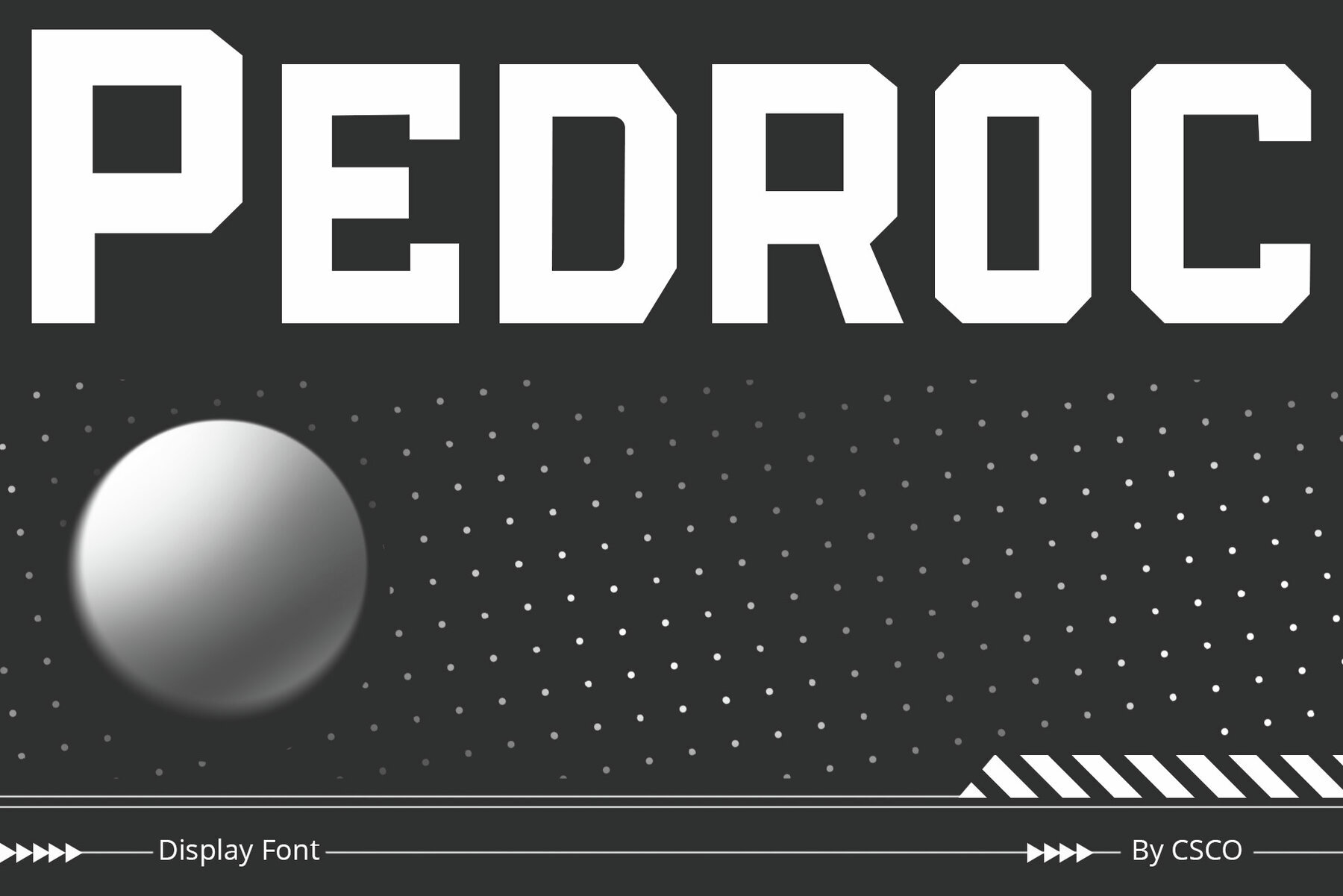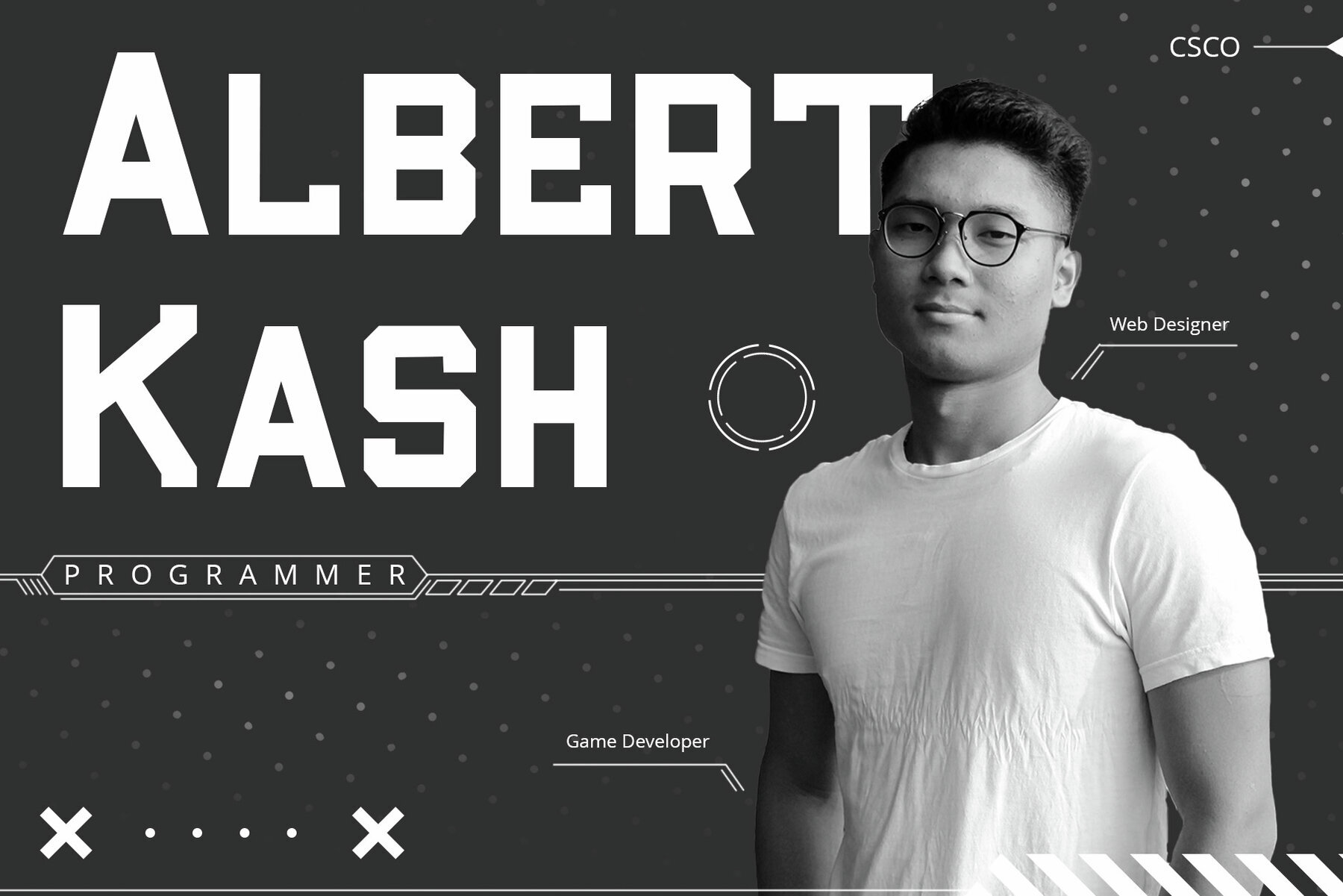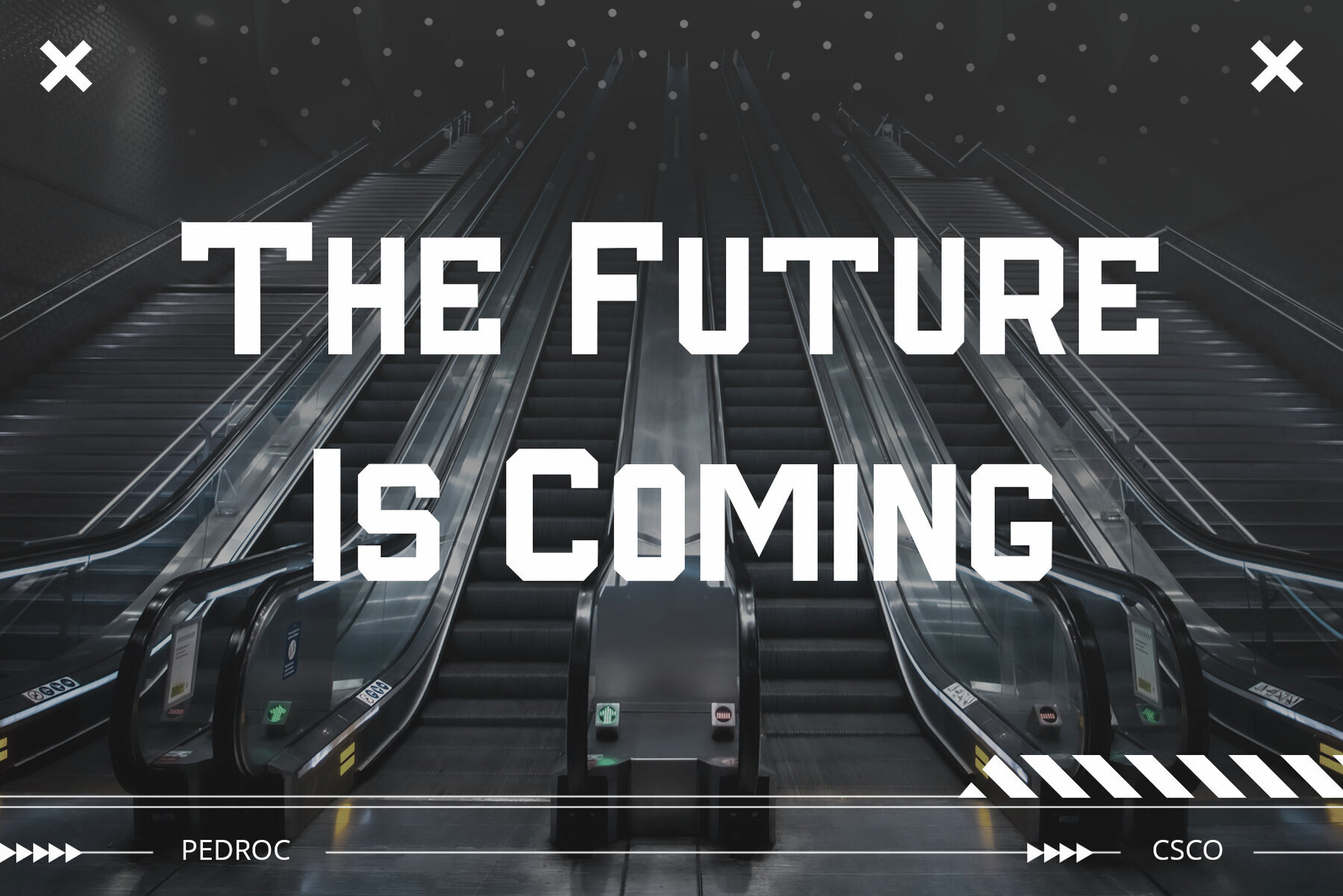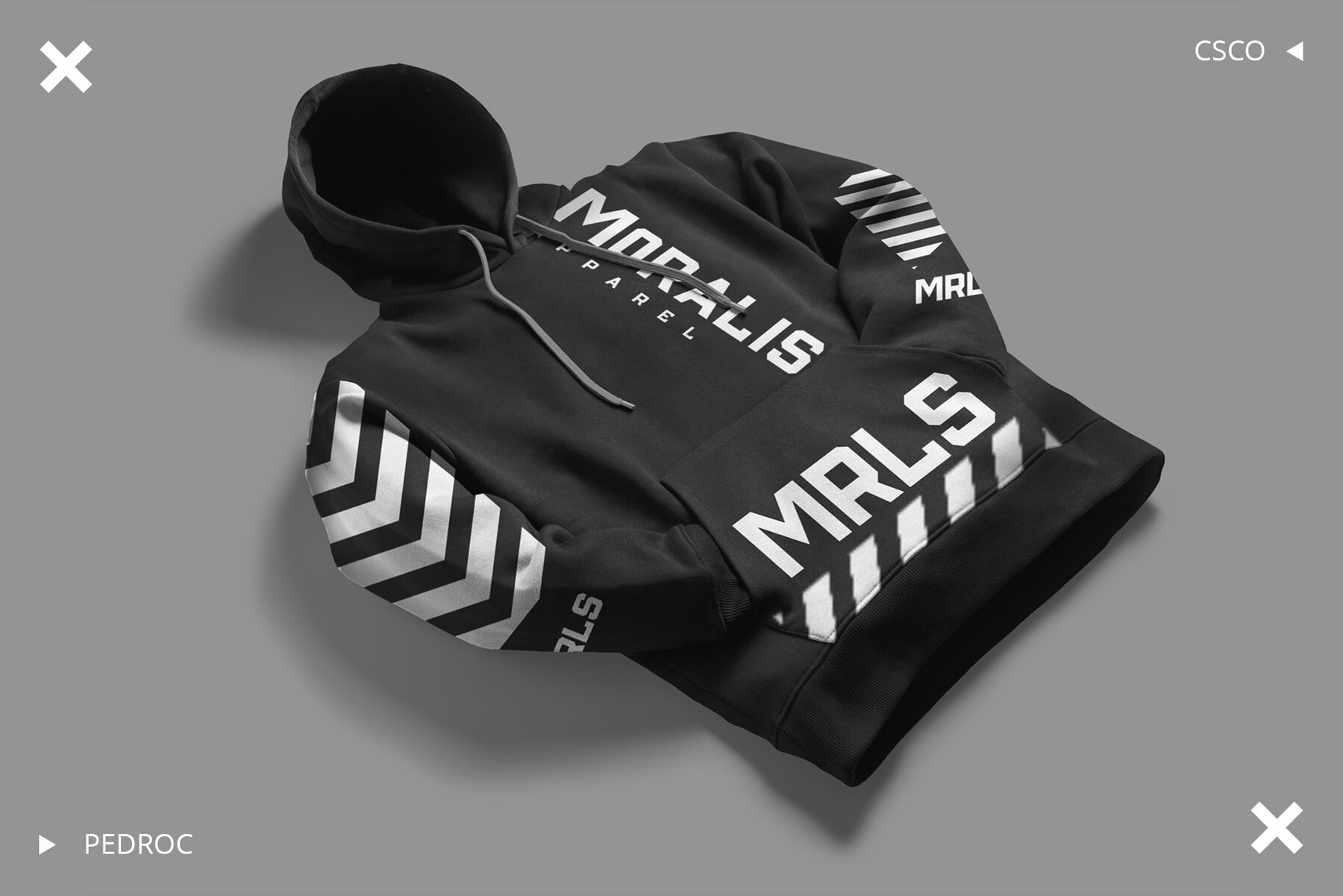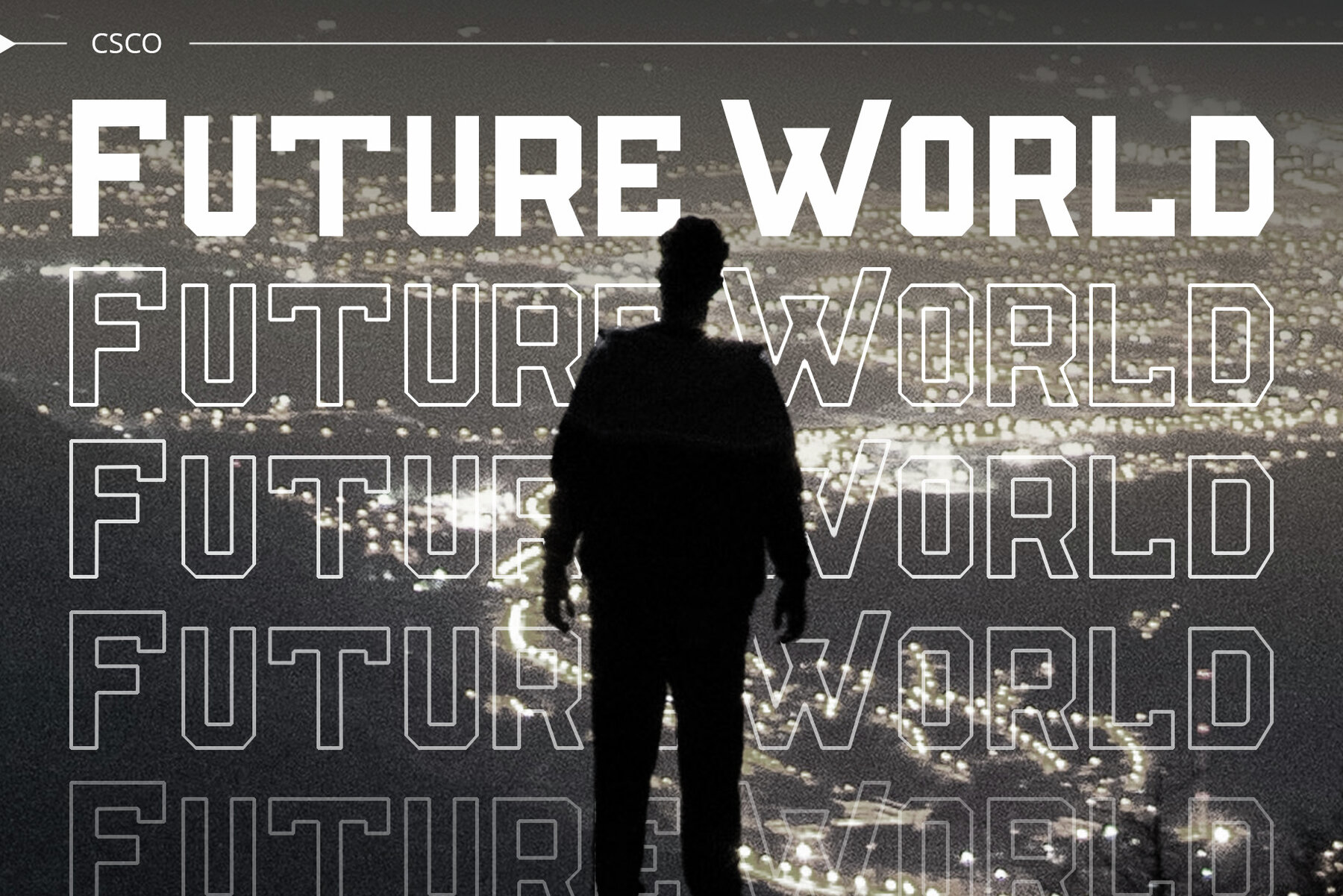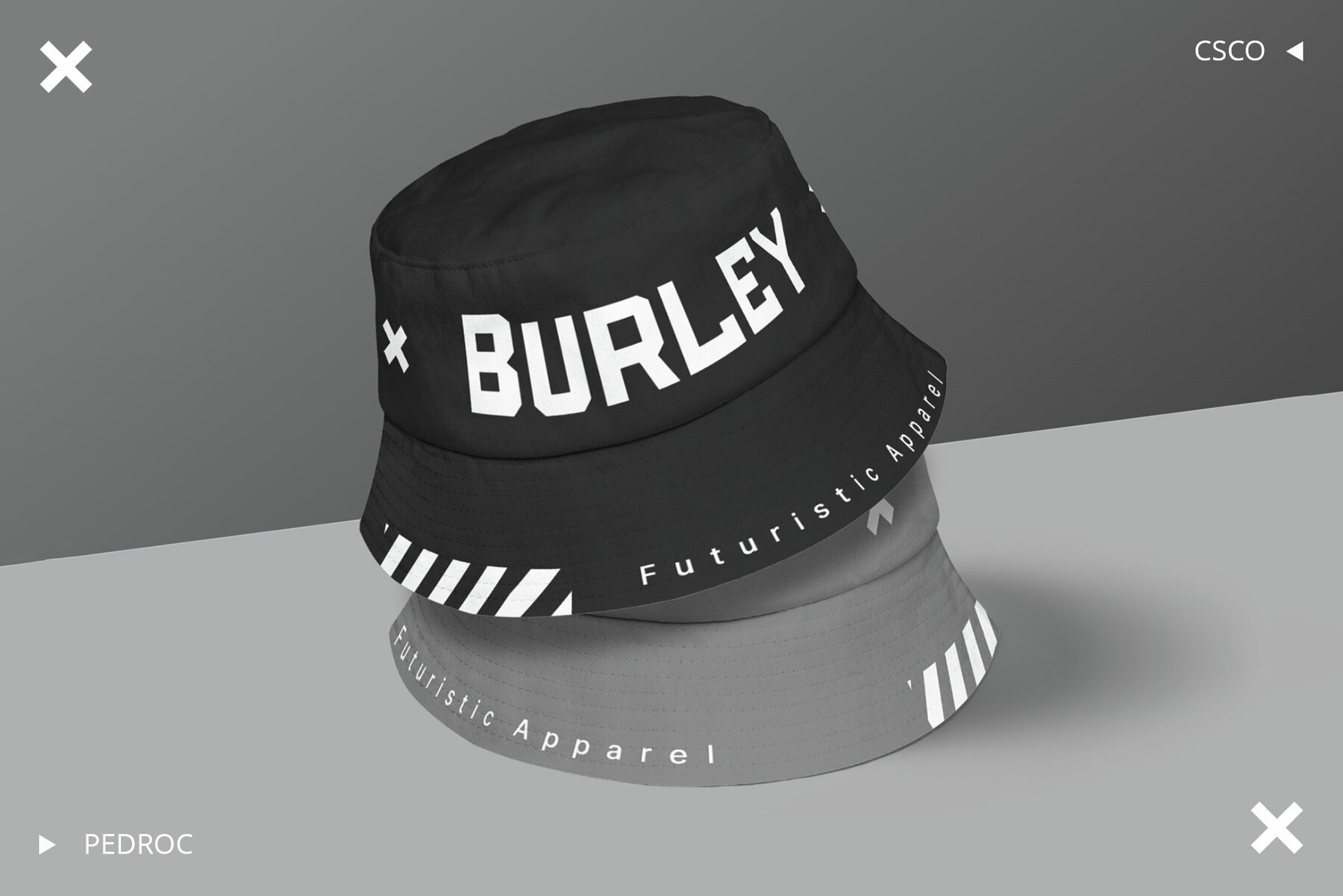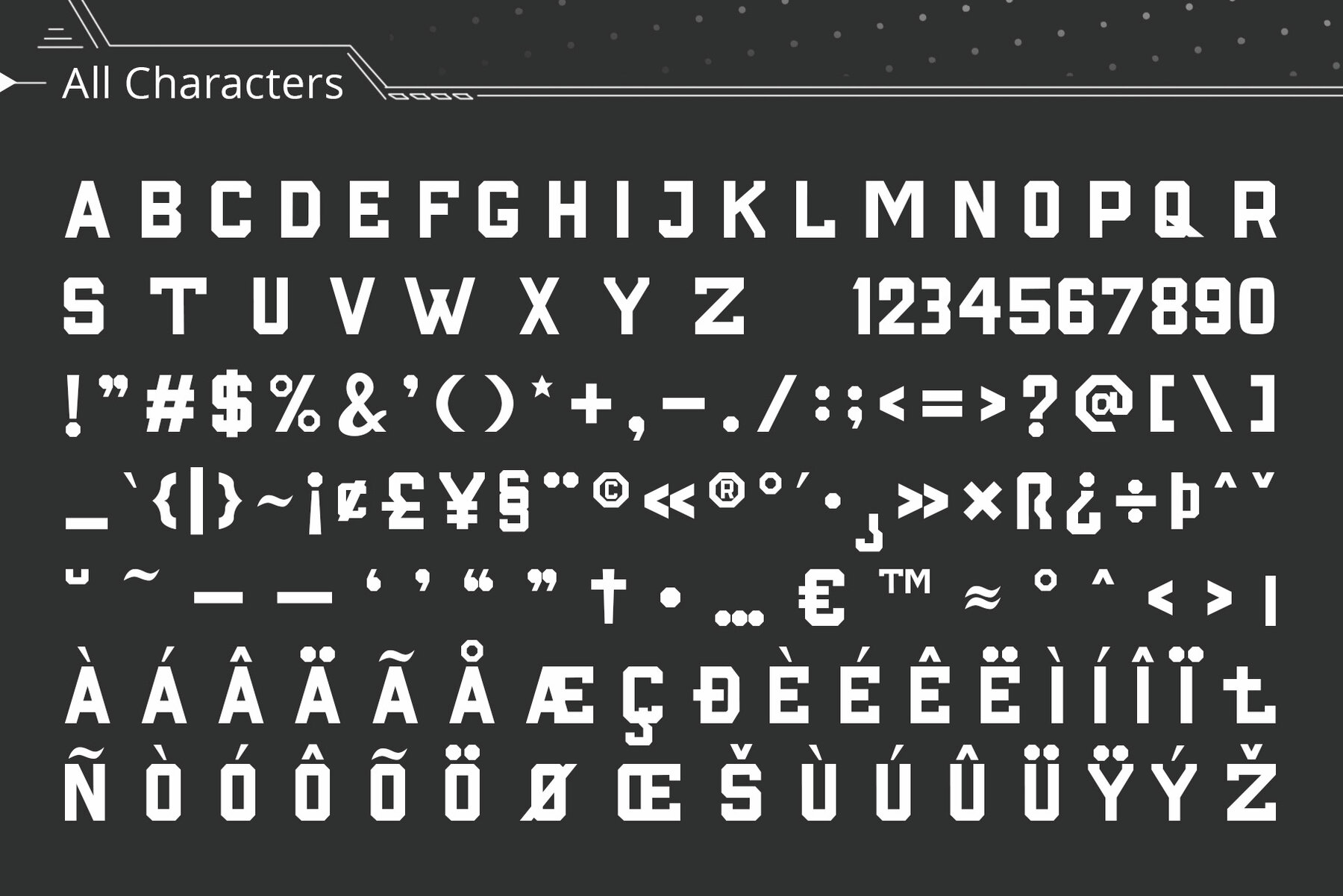
Pedroc Font
Pedroc Regular
Pedroc is a display typeface born from the inspiration of future technology, infusing an industrial touch into its design. It is captivating and ideal for projects that demand a modern flair. The design of Pedroc is a testament to sleek and futuristic aesthetics, making it a standout choice for modern and tech-inspired projects. This font's adaptability shines in various contemporary design contexts. It is suitable for a range of creative endeavors, from branding to posters.Pedroc: Future-Inspired Display Typeface
Sleek and Futuristic Aesthetics
Versatility for Contemporary Design